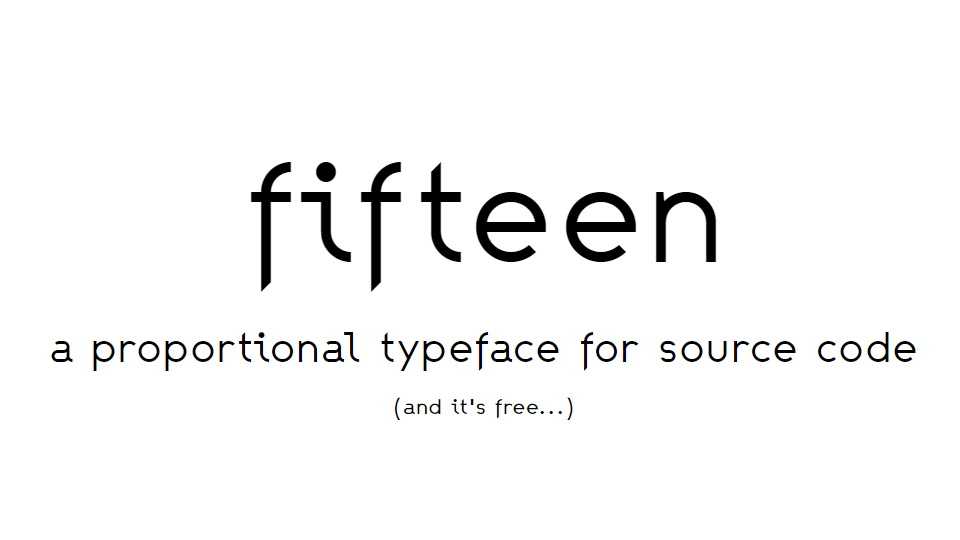
Download Fifteen typeface, a proportionally sized font family in 7 weights and Italics optimized for source code. Fifteen’s proportional design, spacing and subtle kerning give your source code the feeling and rhythm of a natural language.
Designer: David van Gemeren